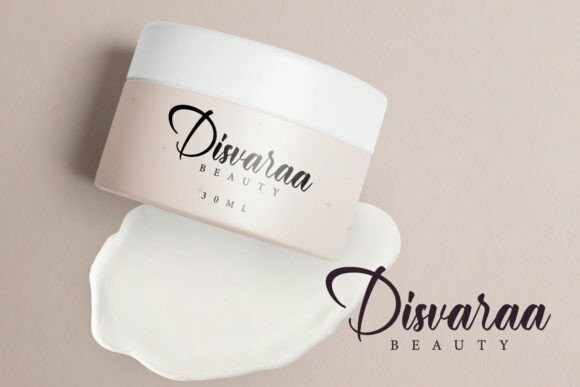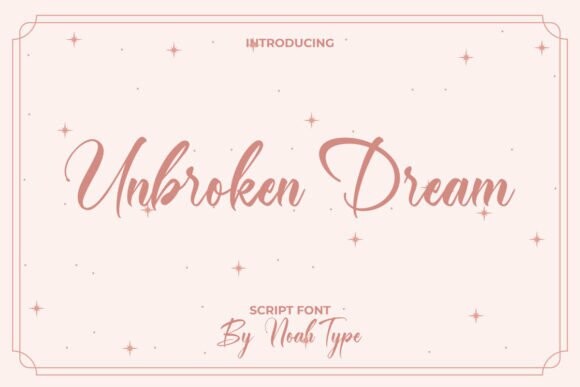
Unbroken Dream Font
Designer: noahtype
Unbroken Dream Font is a modern stunning brush font with calligraphy style designed and made by NoahType. This font is made of cursive lines which looks good for a stylish design, such as business card, calendar, custom design, invitation, label, magazine catalog, menu, poster, product packaging, quote, title, website, and more!